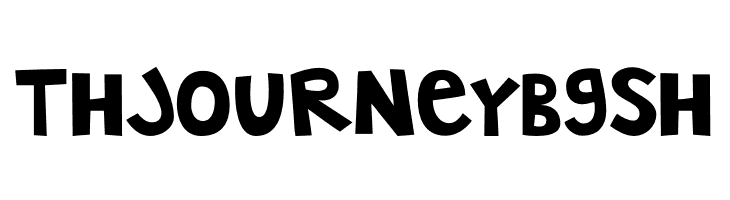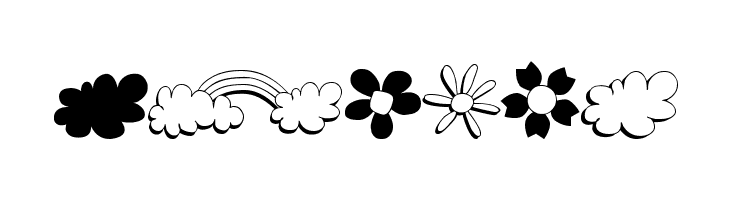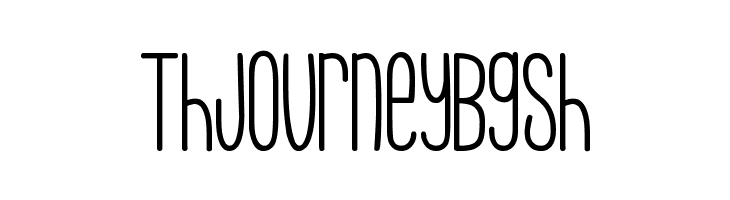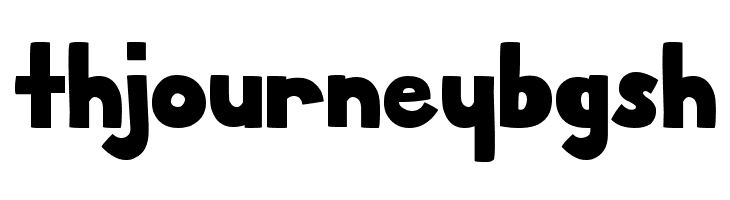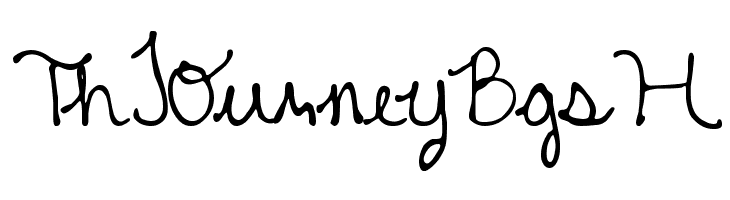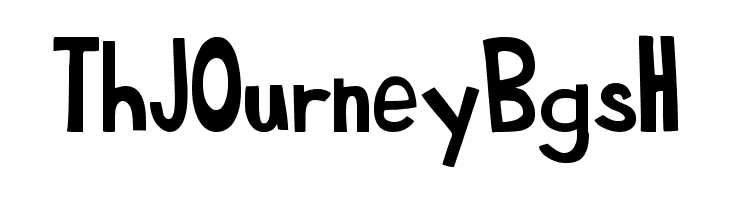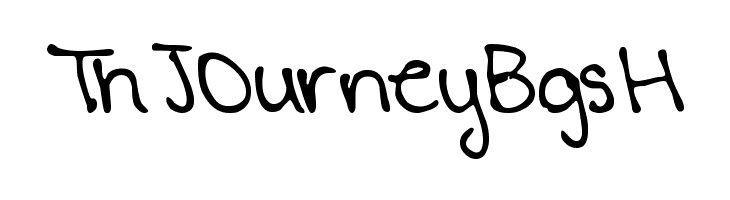
A playful, casual handwritten font with irregular, whimsical strokes.
A playful, bold font with irregular, hand-drawn letterforms.
A playful, handwritten font with fluid strokes and a casual style.
A playful, handwritten font with a casual and friendly appearance.
A playful, bold font with rounded characters and a whimsical style.
A tall, narrow font with elongated, thin characters for a sleek, modern look.
A playful and whimsical font with bold, rounded characters and a fun, informal style.
Whimsical nature-themed dingbats with floral and weather motifs.
A playful, whimsical font with quirky, decorative letterforms.
A playful, whimsical font with curly, flowing letterforms.